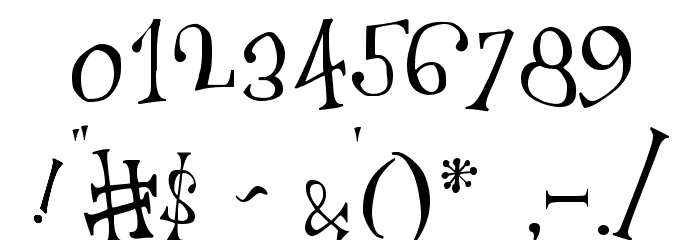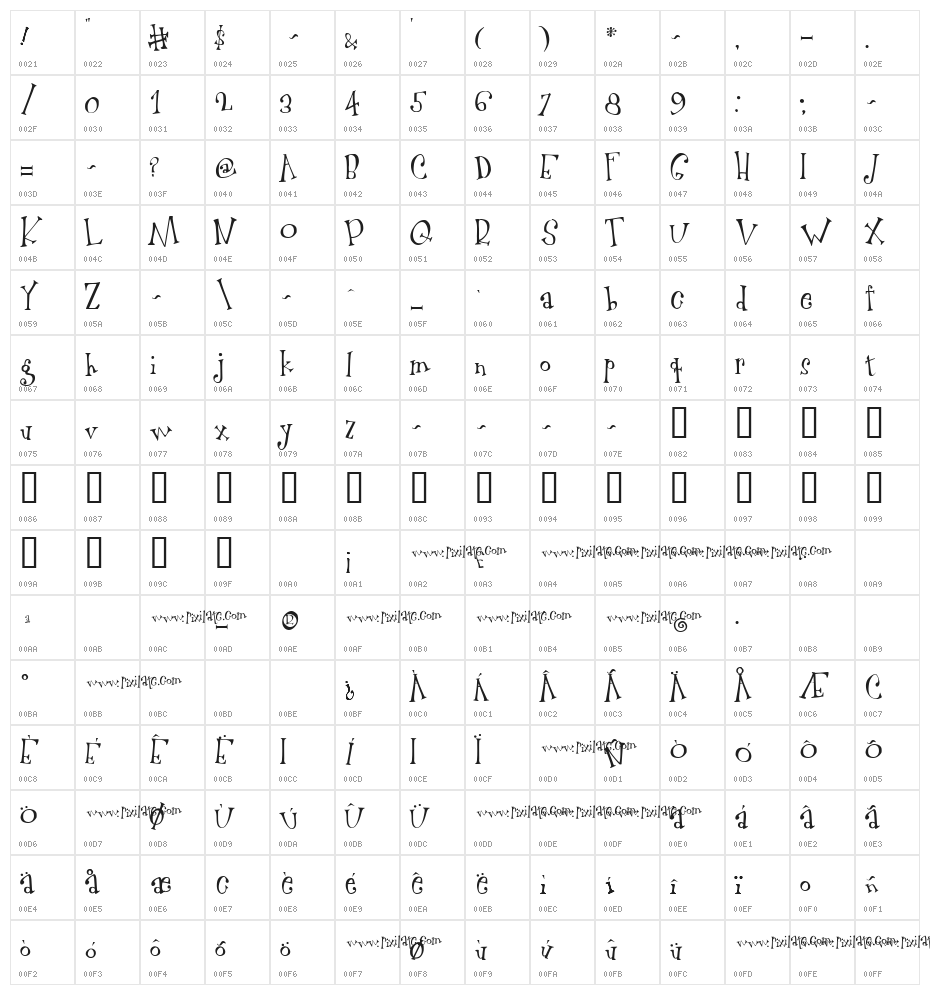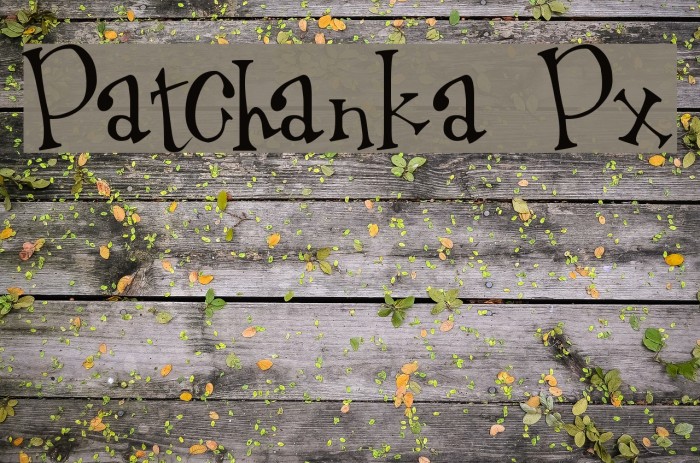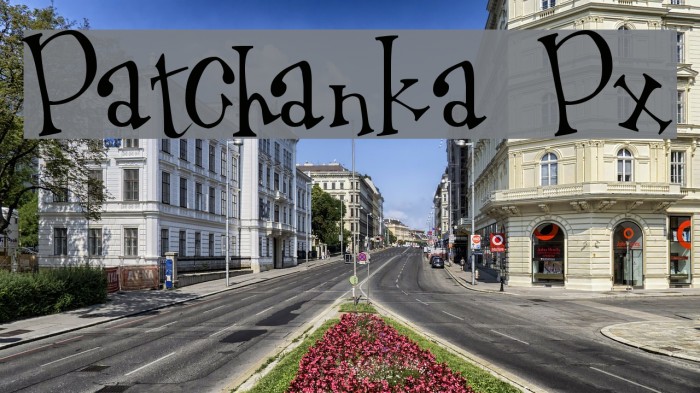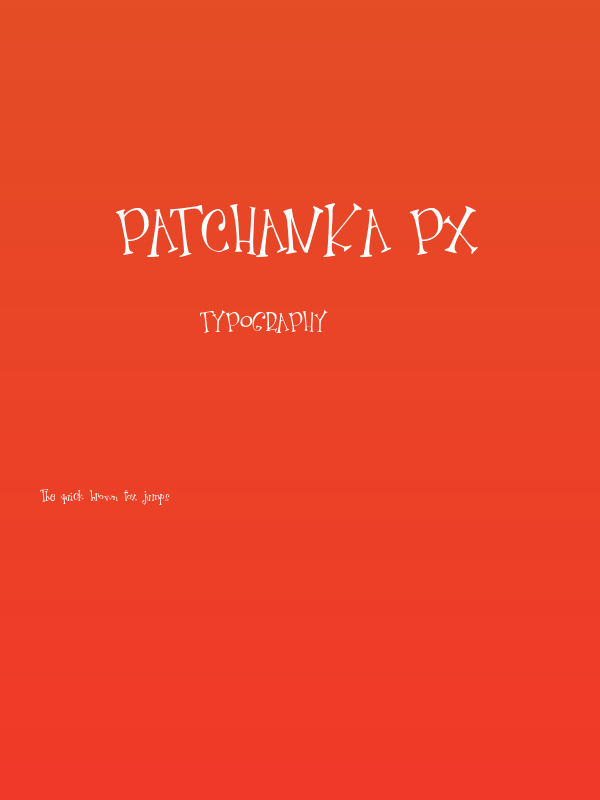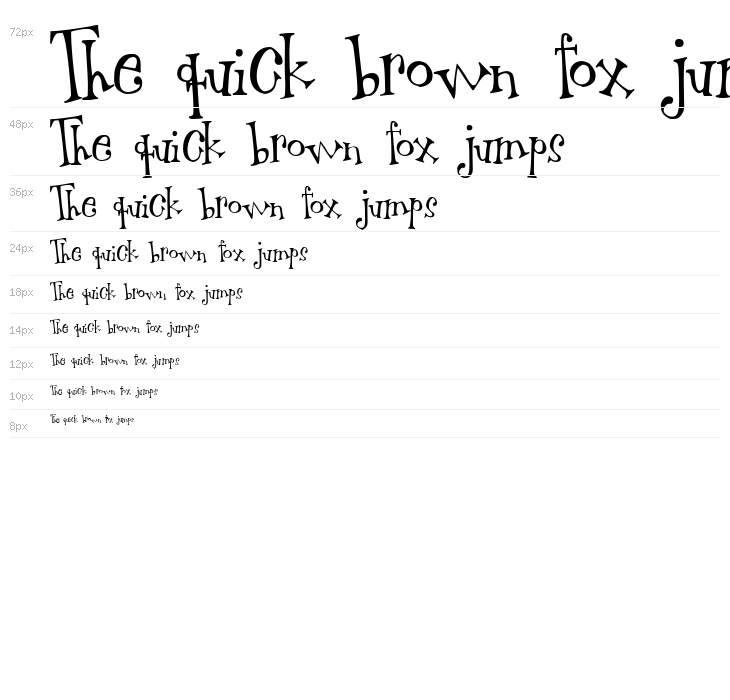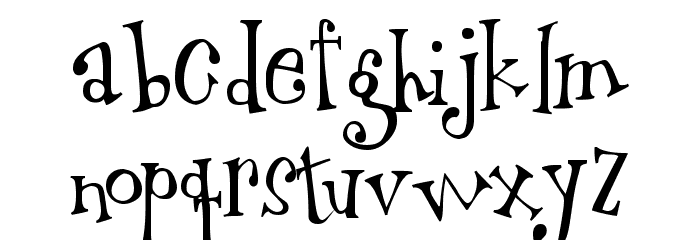
Patchanka Px Font
Patchanka Px Description
This font exhibits a playful and whimsical style, characterized by its irregular and dynamic letterforms. The uppercase letters are tall and slightly tilted, giving a sense of movement and energy. The lowercase letters maintain this lively aesthetic with unique curves and varying stroke widths. The numbers are bold and quirky, matching the overall theme of the font. Special characters are creatively designed, adding to the font's distinctive personality. This font is perfect for projects that require a fun and informal touch, such as children's books, playful branding, or creative posters.